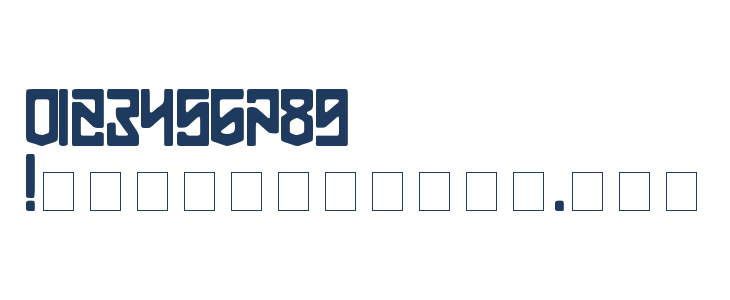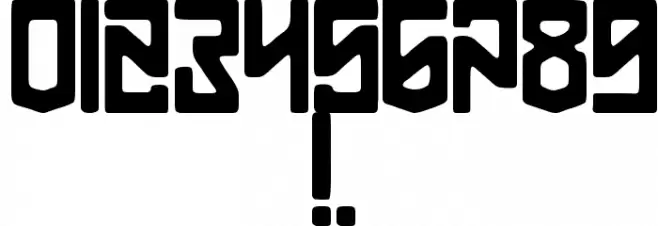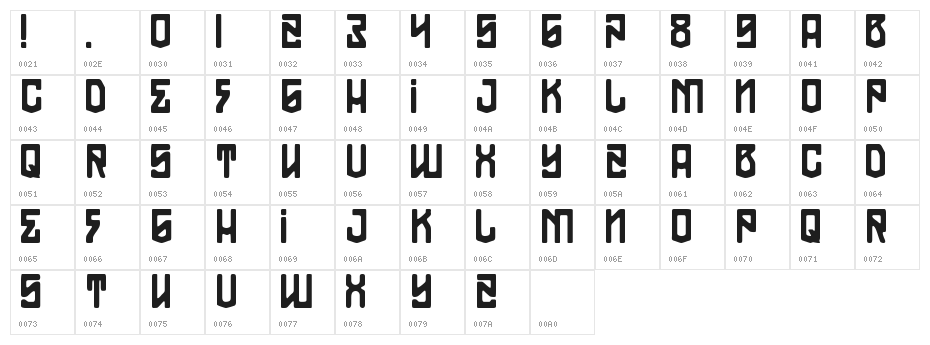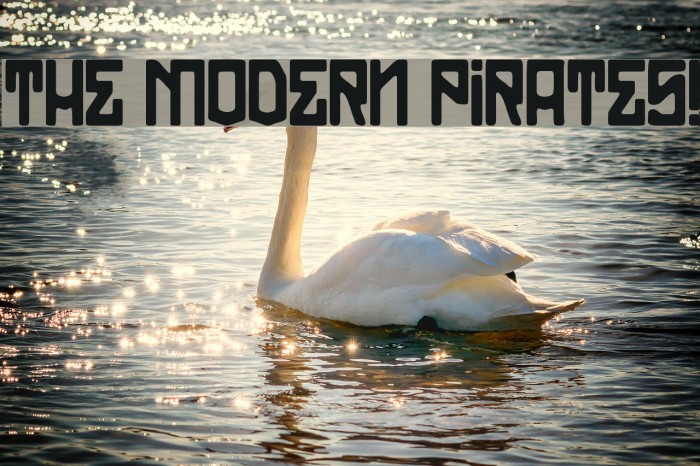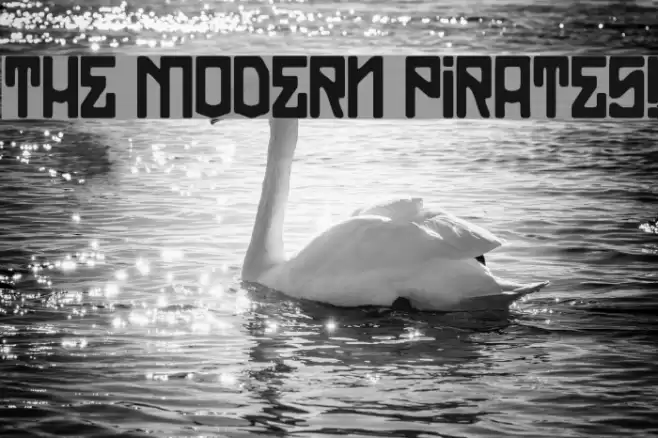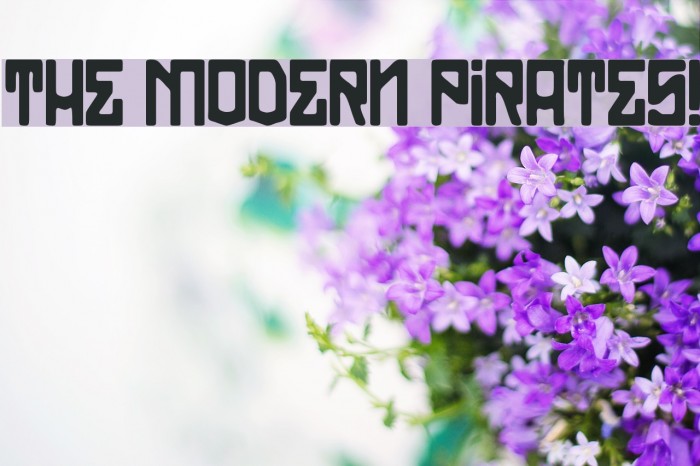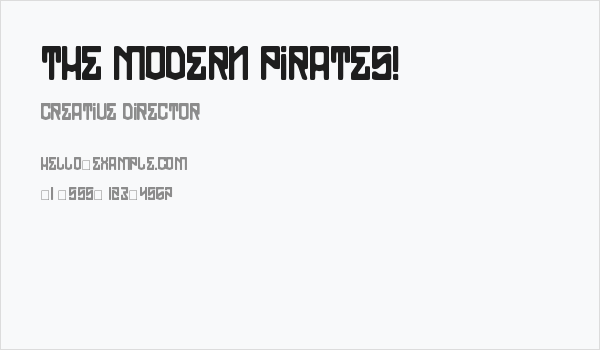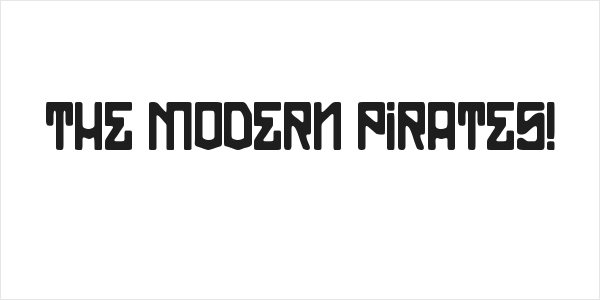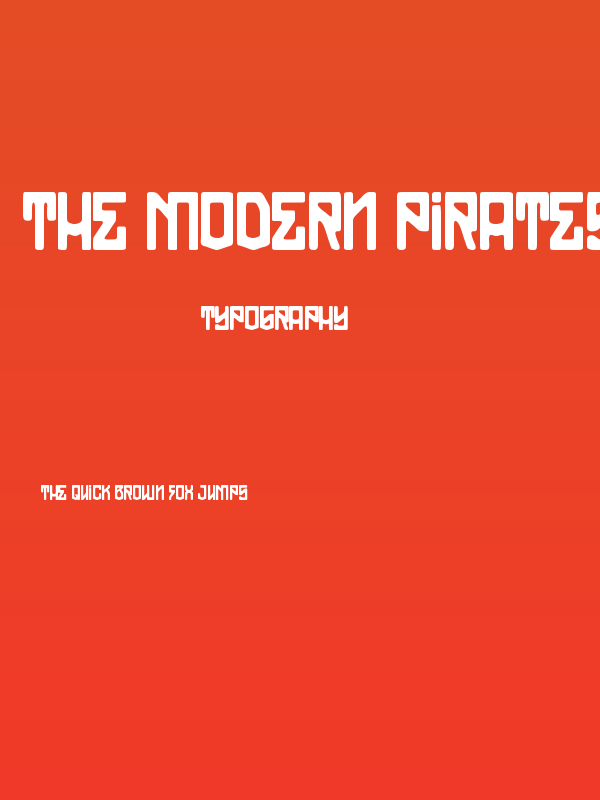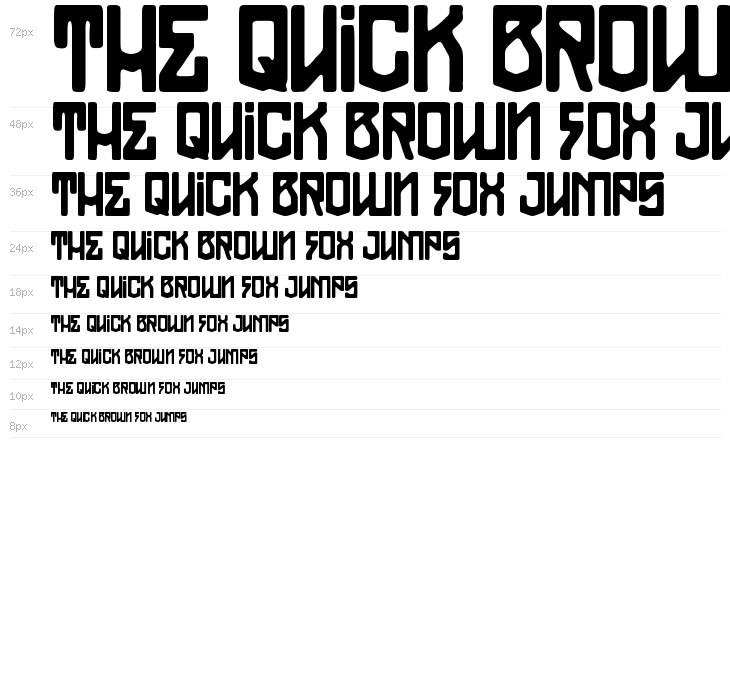
THE MODERN PIRATES! Font
THE MODERN PIRATES! Description
This font features a bold and geometric design with a modern twist. The characters are constructed with thick, uniform strokes, giving them a strong and impactful presence. The angular shapes and sharp edges contribute to a futuristic and edgy aesthetic. The uppercase and lowercase letters maintain a consistent style, while the numerals and special characters complement the overall design. The font's unique style makes it suitable for projects that require a bold statement, such as branding, posters, and headlines.
| Proposed Projects | Ideal for branding, posters, headlines, and any design needing a bold, modern statement. |